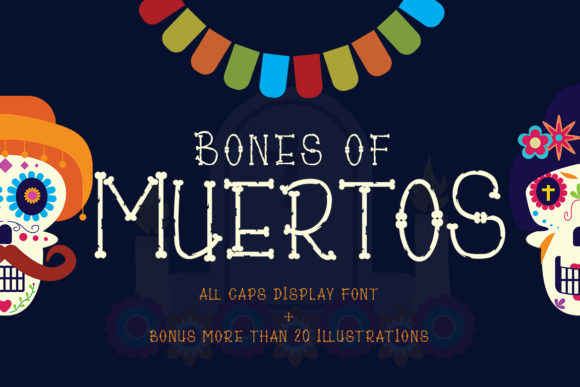
A Sweet Celebration of Mexican Culture: Unwrapping the Bones of Muertos Font
As a designer, I’ve had my fair share of late nights scouring the internet for the perfect font to bring a client’s vision to life. But there was one project that still haunts me – a Dia de los Muertos (Day of the Dead) themed poster for a local Mexican restaurant. I wanted a font that would capture the essence of this vibrant celebration, but everything I found seemed to miss the mark. That was until I stumbled upon the Bones of Muertos font. ✨
- Authentic Mexican flair: The font beautifully embodies the spirit of Dia de los Muertos, making it perfect for projects that require a touch of cultural sensitivity. ✅
- Unique character set: The Bones of Muertos font boasts an impressive range of glyphs, including skulls, flowers, and other festive elements that add a playful twist to your designs.
- Elegant and whimsical: This font seamlessly balances elegance and playfulness, making it suitable for various design applications, from invitations to posters.
- Limited multilingual support: While the font covers English and some basic Latin characters, it might not be the best choice for projects requiring extensive multilingual support. ⚠️
- Glyph compatibility: Some glyphs might not work seamlessly across all platforms or software. Be sure to test them before finalizing your design. 🤔
The Story Behind Bones of Muertos
Rumor has it that the creator of Bones of Muertos was inspired by the vibrant colors and festivities of Dia de los Muertos. They wanted to craft a font that would not only celebrate Mexican culture but also make it accessible to designers worldwide. While the true story might be shrouded in mystery, one thing is certain – the Bones of Muertos font is a beautiful tribute to this incredible celebration.
| What makes Bones of Muertos unique? | The font’s authentic Mexican flair, unique character set, and elegant yet whimsical design make it a standout choice for designers. |
| Is Bones of Muertos suitable for body text? | While the font is primarily designed for display purposes, it can be used for body text in certain contexts. However, its unique features might shine brighter in headlines or titles. |